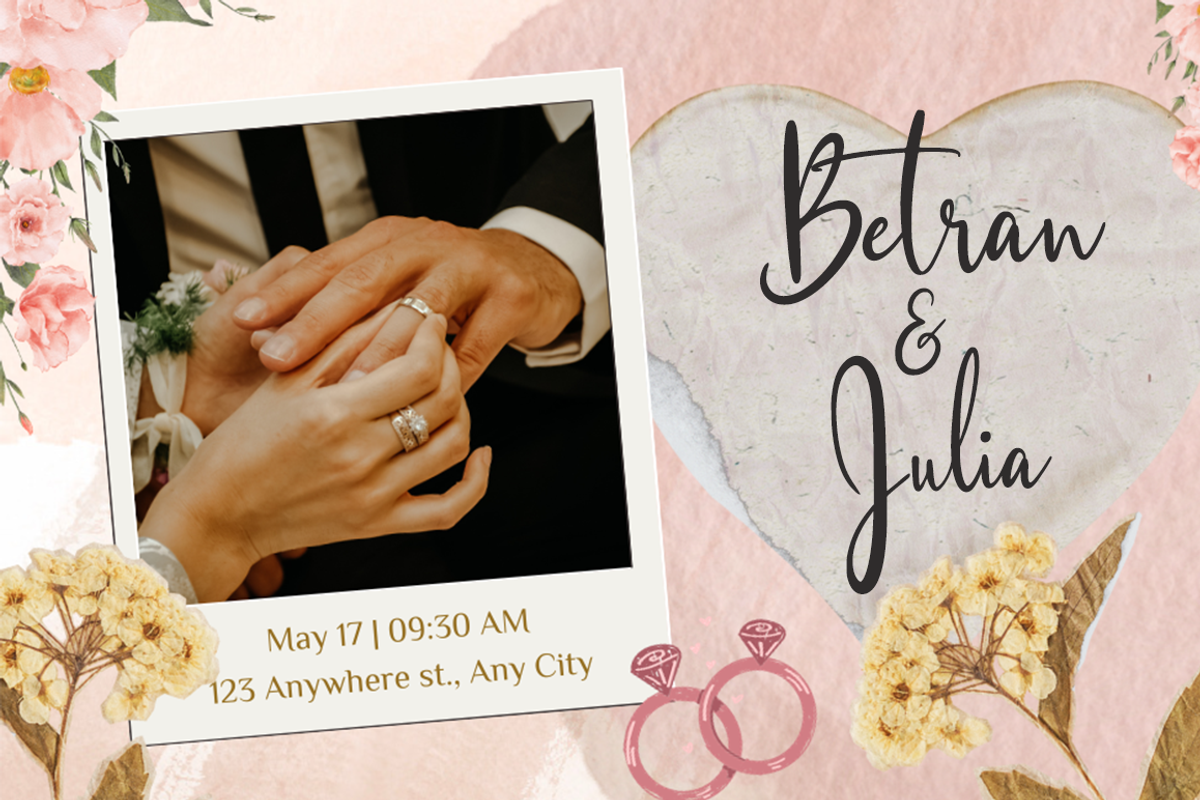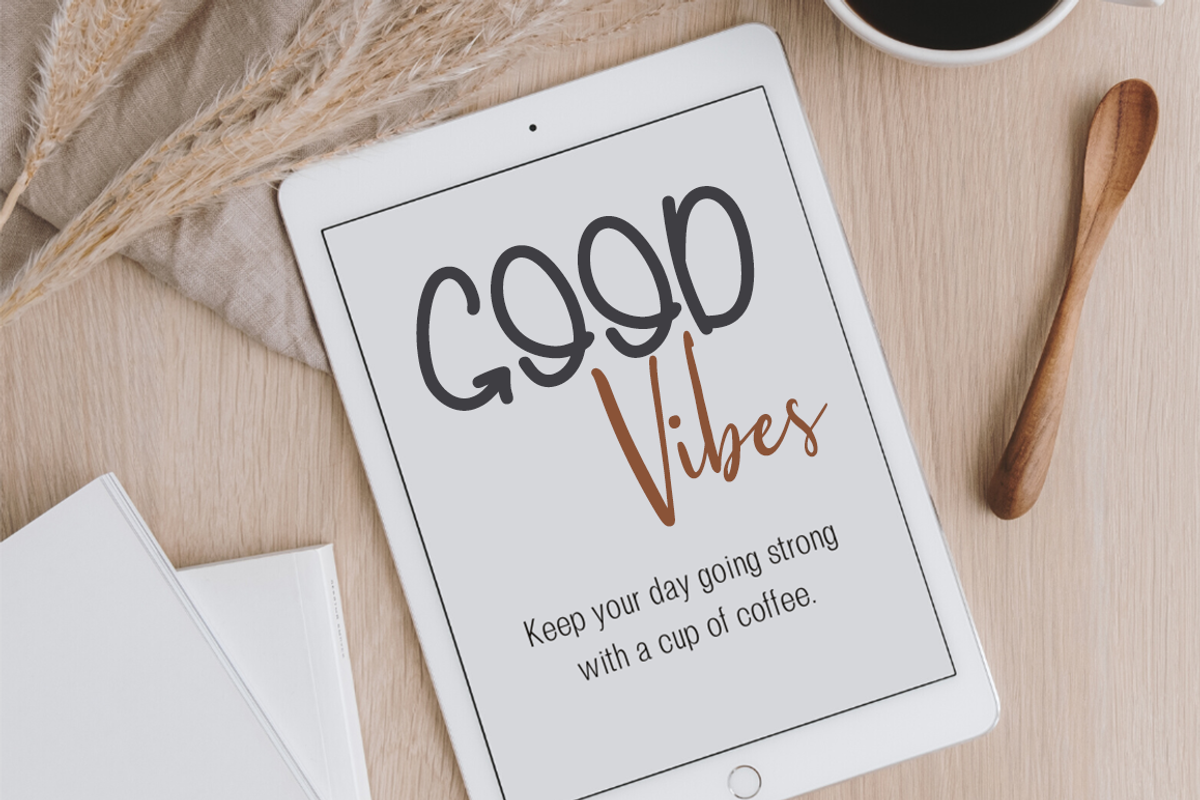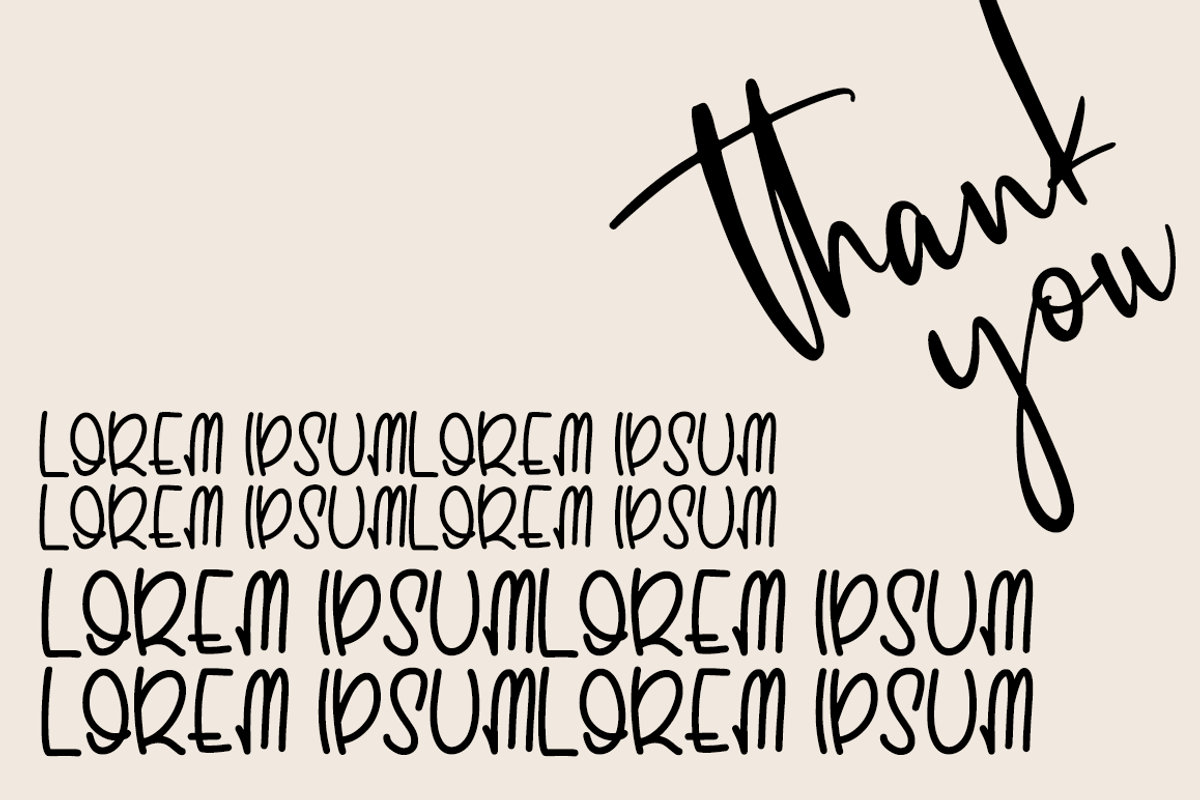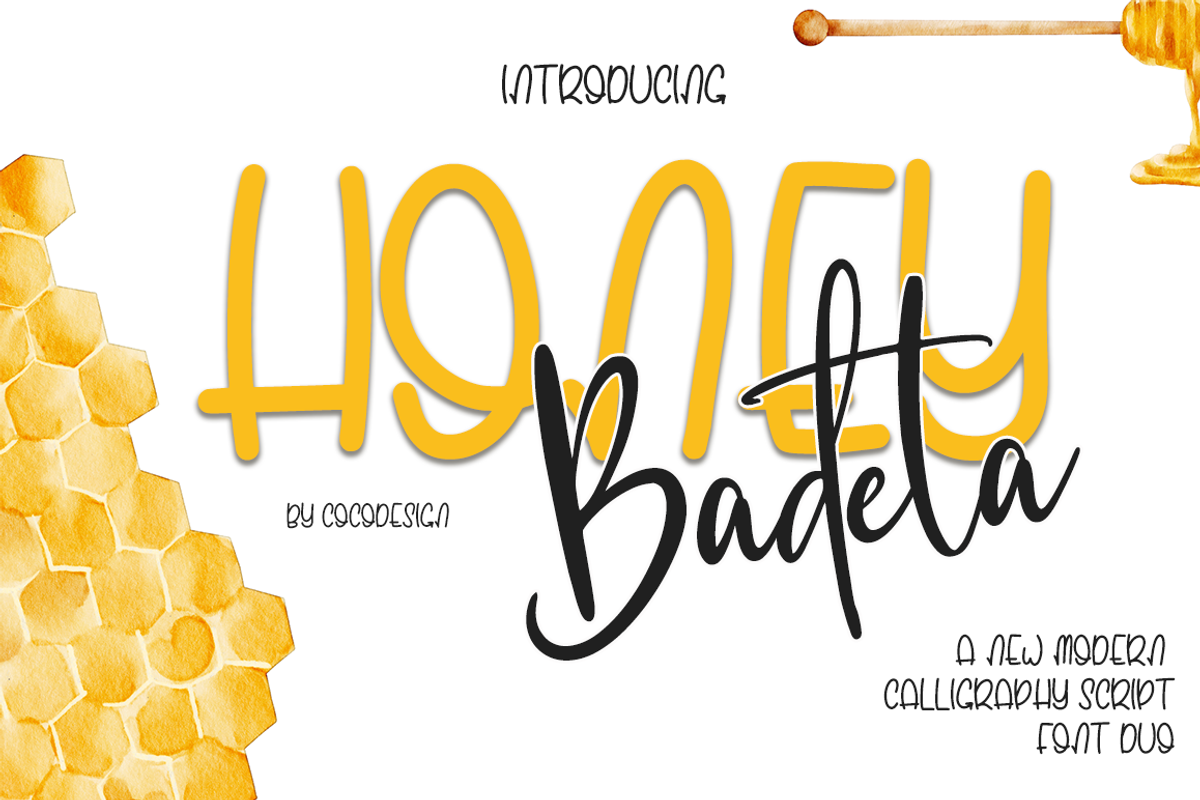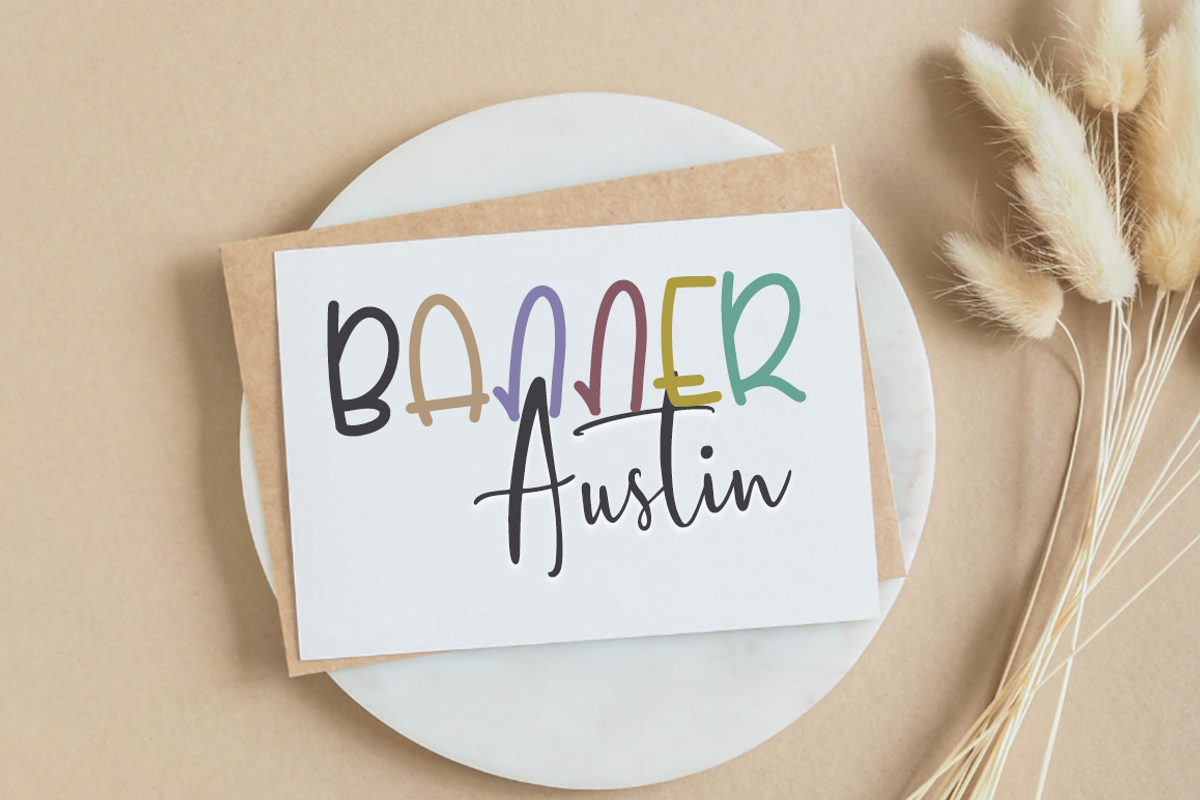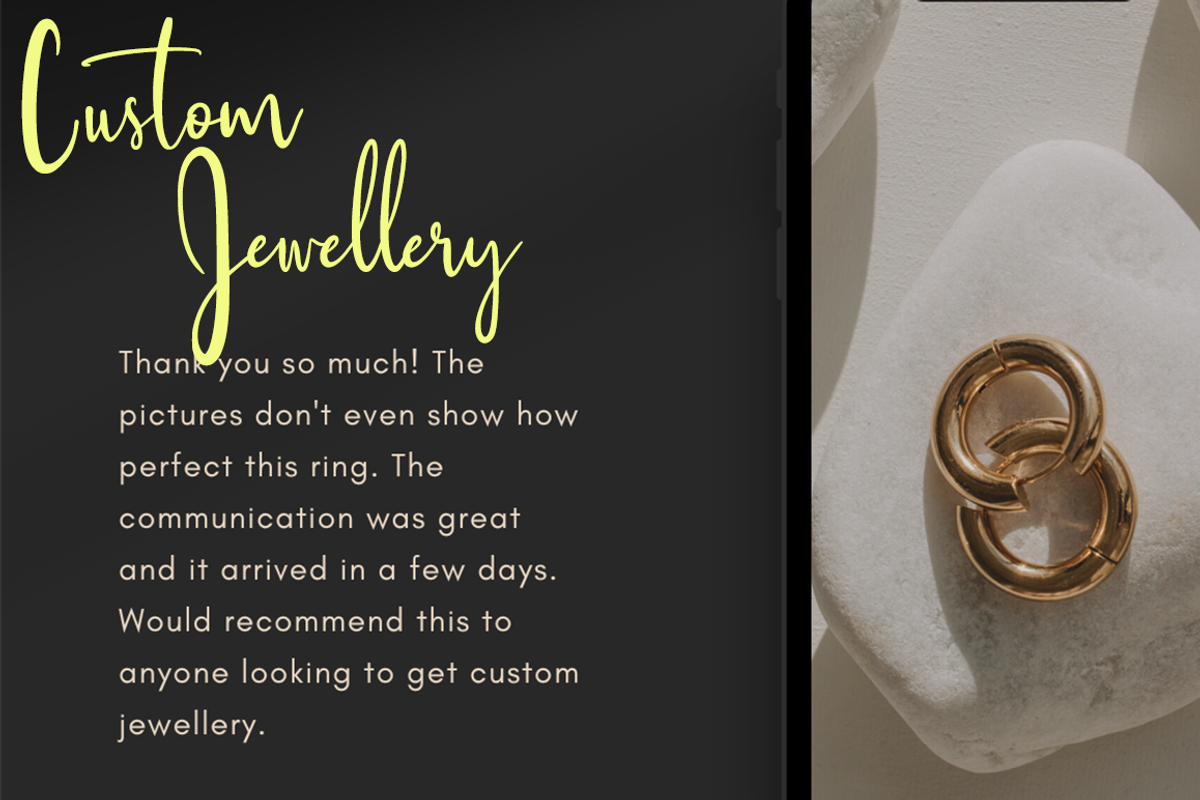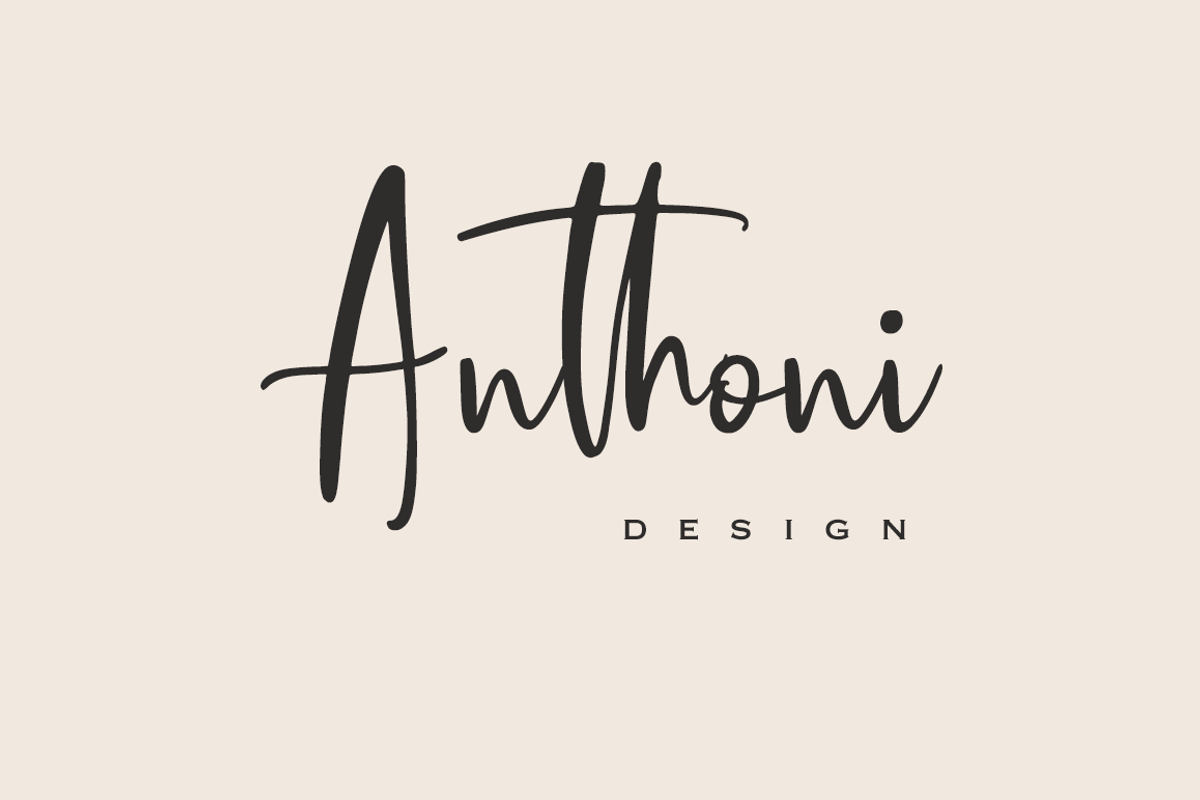
Honey badeta
Honey badeta font duo Script is a modern calligraphy design, including Regular. This font is casual and beautiful with swash. Can be used for various purposes. such as logos, product packaging, wedding invitations, branding, headlines, signage, labels, signatures, book covers, posters, quotes, and more.